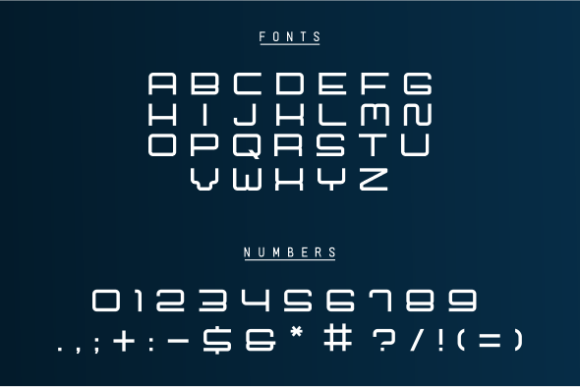
Introduction to Novend Font
Novend is a modern and cool display font.
This font would be ideal for writing web designs, business cards, or pretty much anything else that requires a unique touch .
Key Features of Novend Font